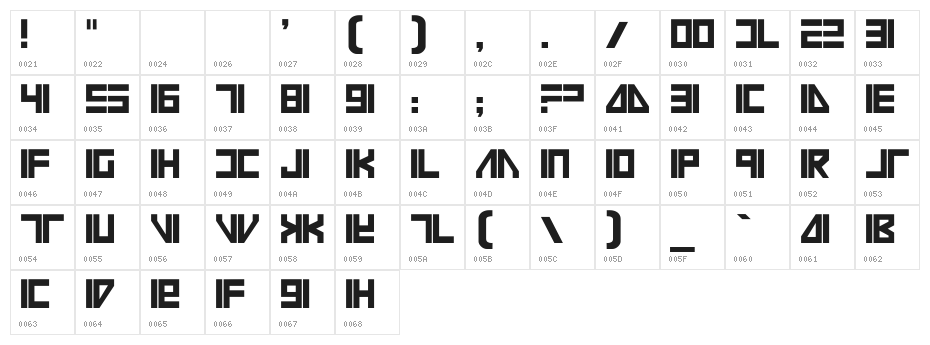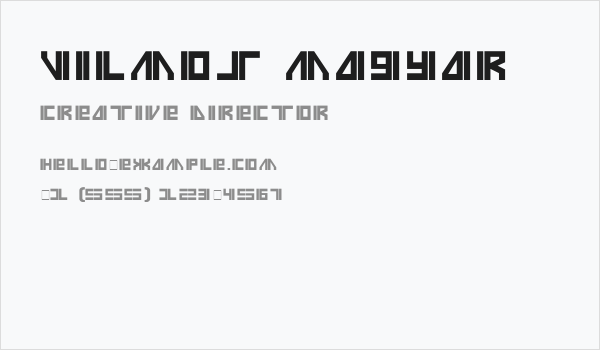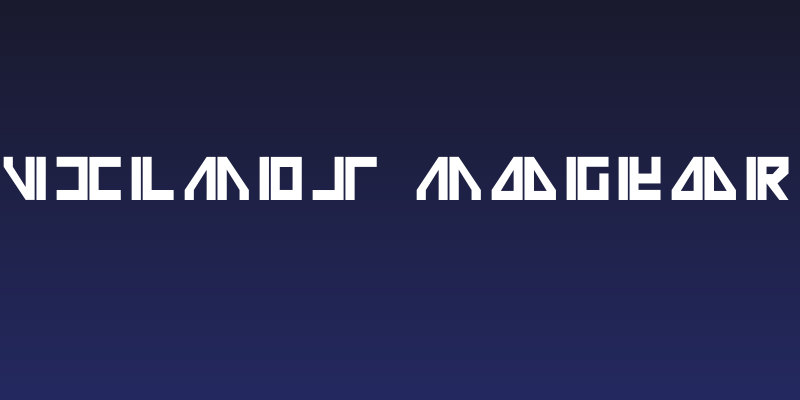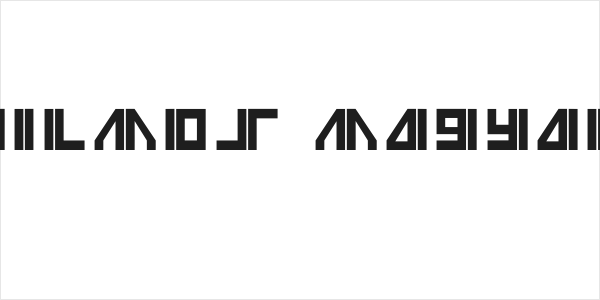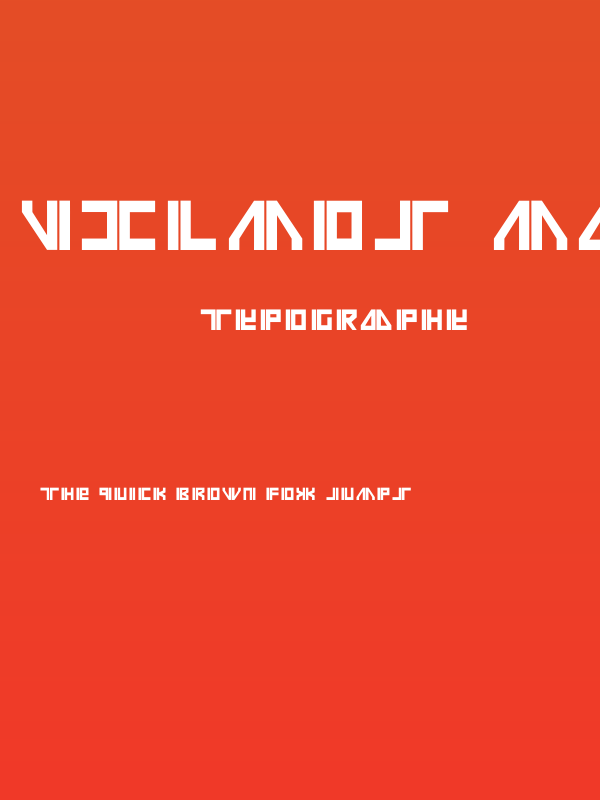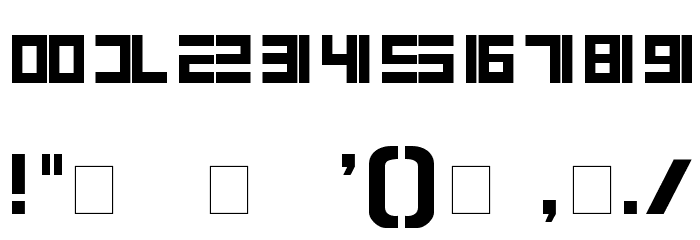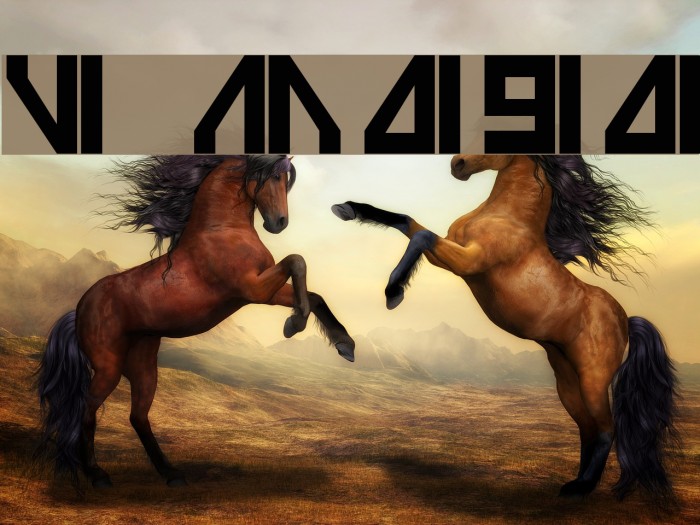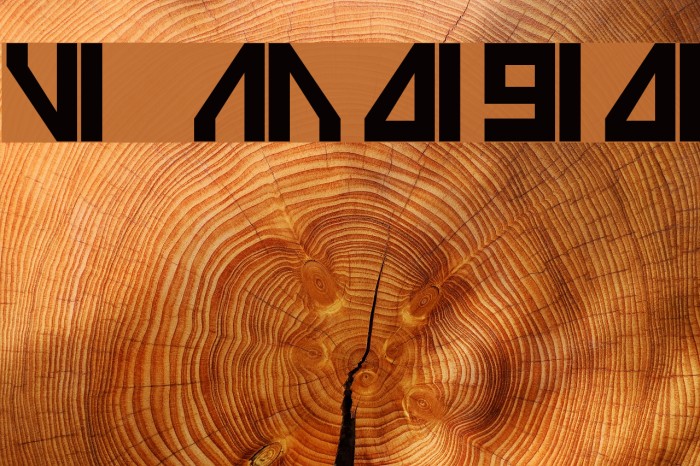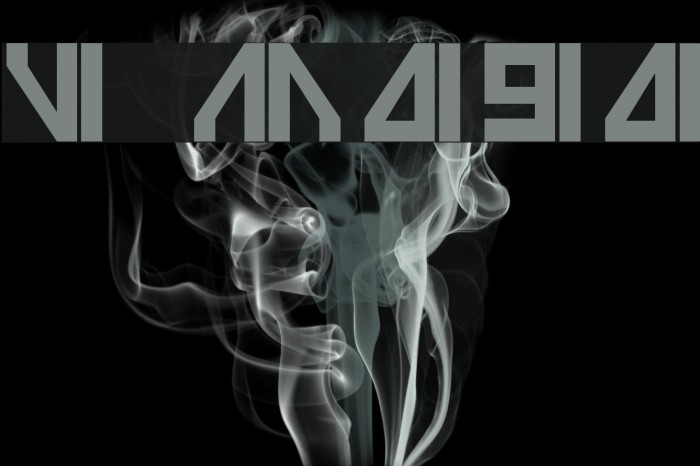
Vilmos Magyar Font
Vilmos Magyar Description
This font features a bold and geometric design, characterized by sharp angles and a futuristic aesthetic. The uppercase and lowercase letters share a consistent style, with a blocky and angular appearance that suggests a modern, tech-inspired theme. The numbers and special characters maintain this cohesive look, making the font suitable for digital and sci-fi themed projects. The uniformity in stroke width across all characters provides a strong visual impact, while the unique shapes of each letter add a distinctive flair. The font's design is both eye-catching and functional, making it ideal for projects that require a bold statement.
| Proposed Projects | Ideal for digital interfaces, sci-fi themed posters, video game graphics, and tech branding. |